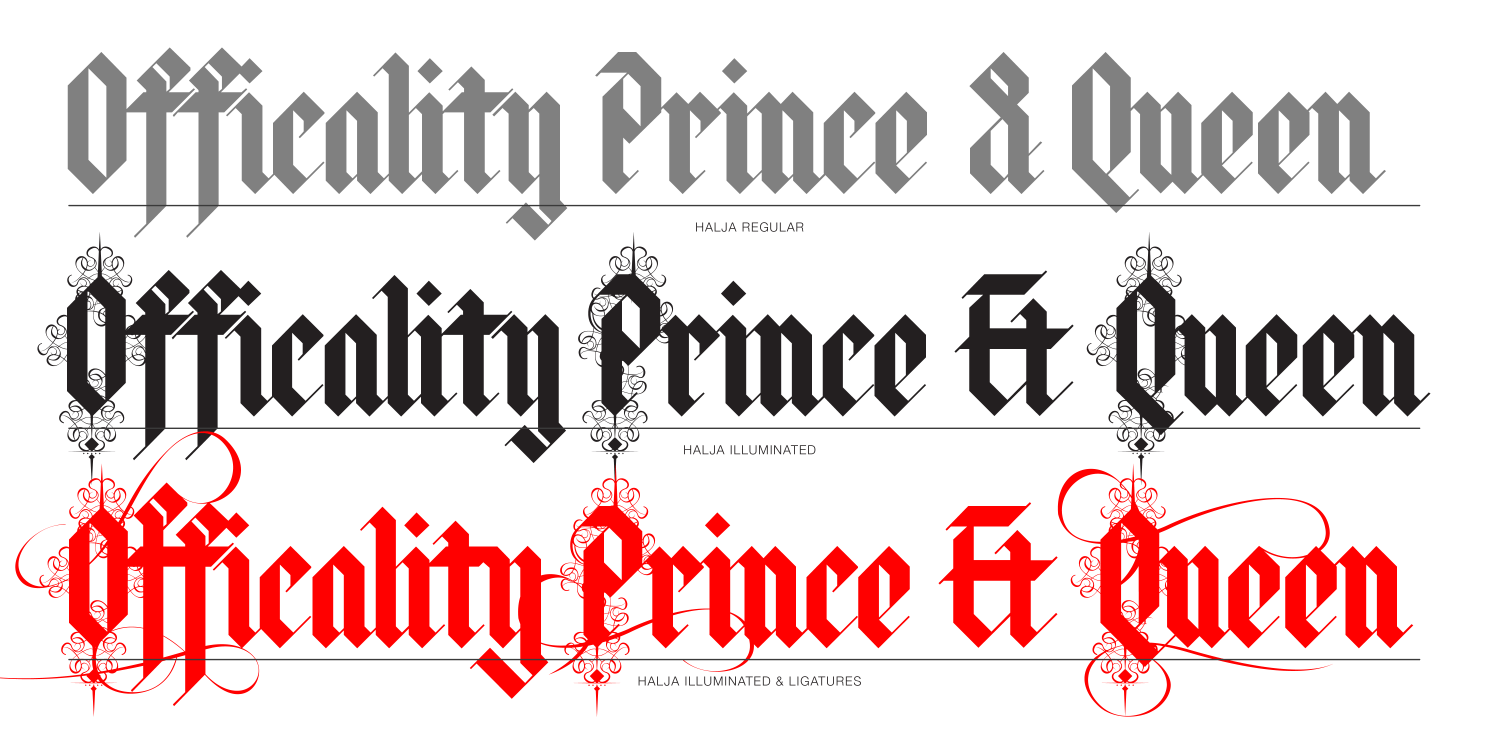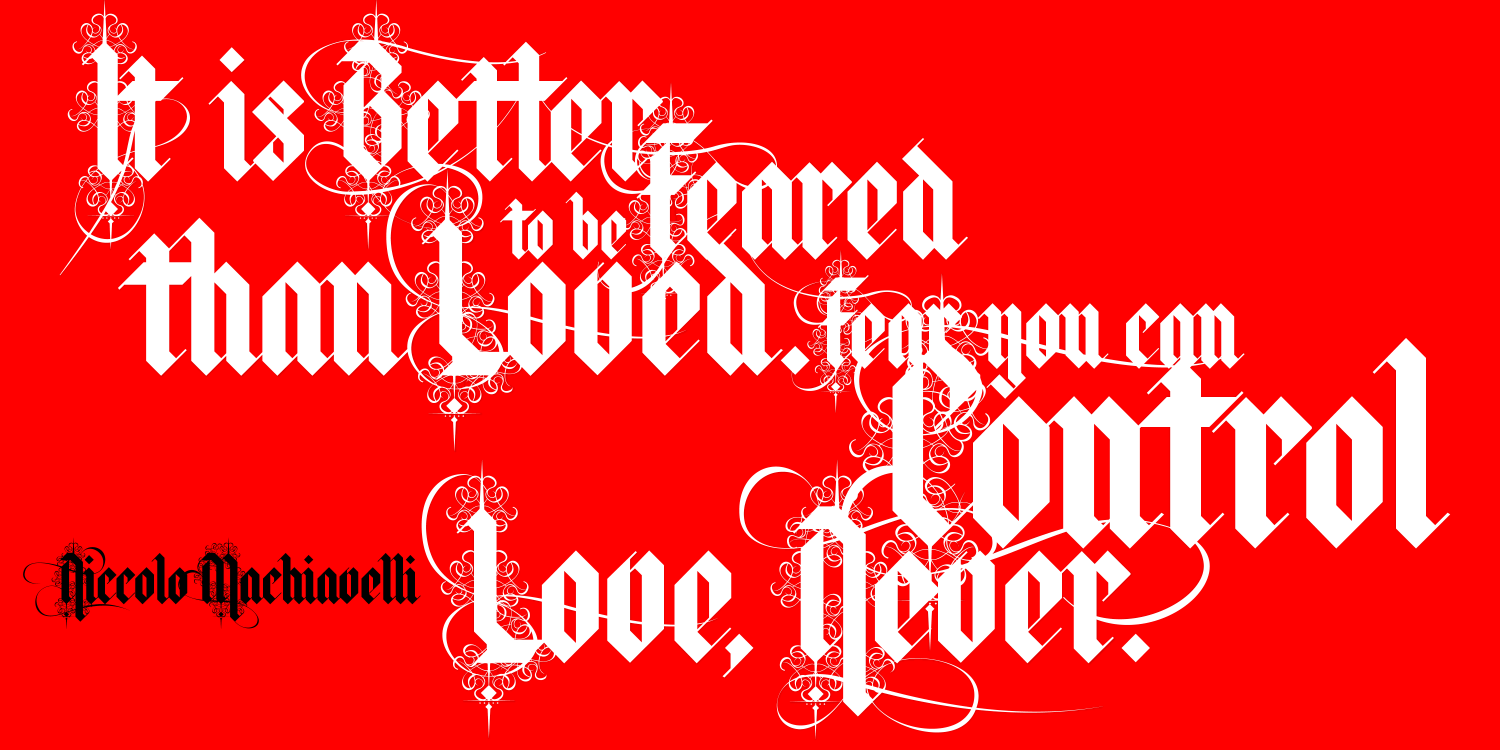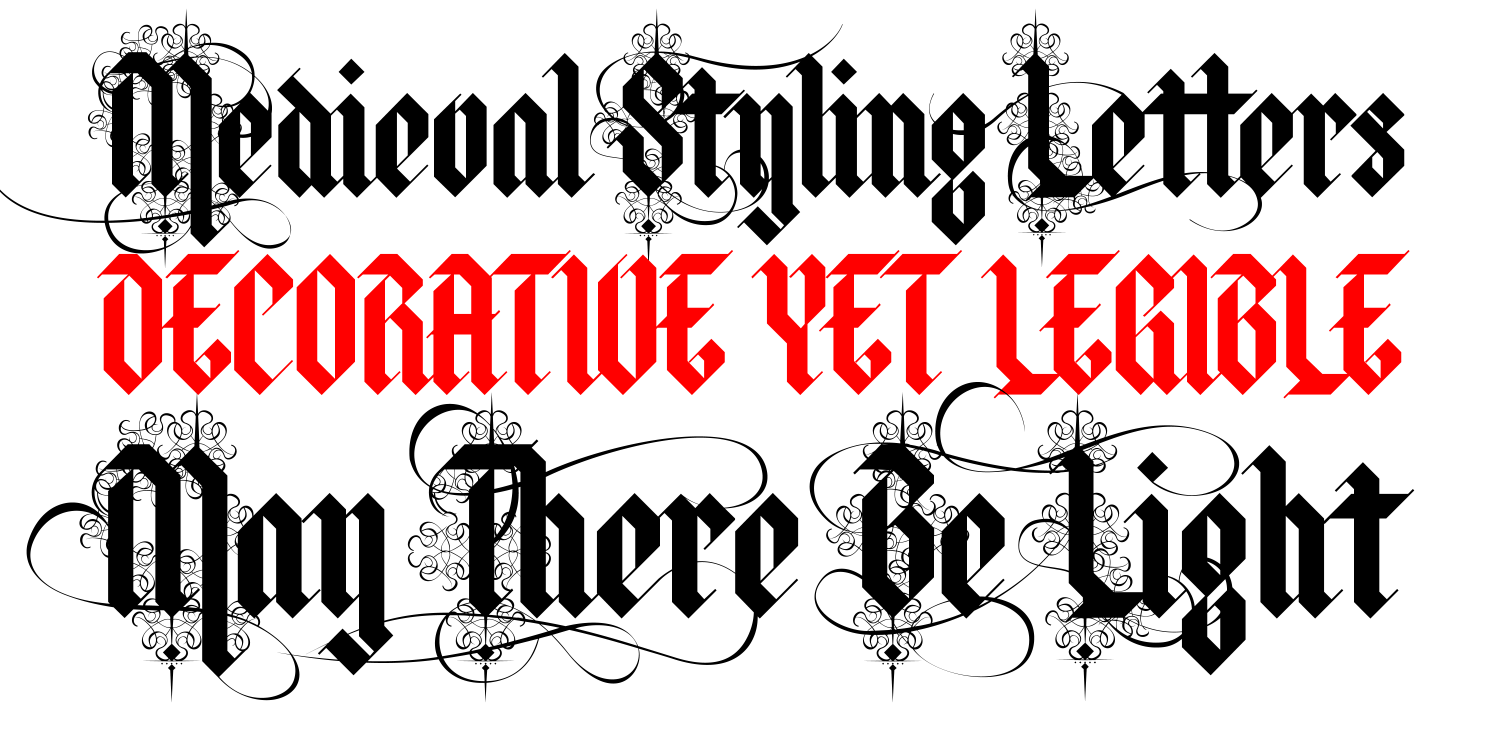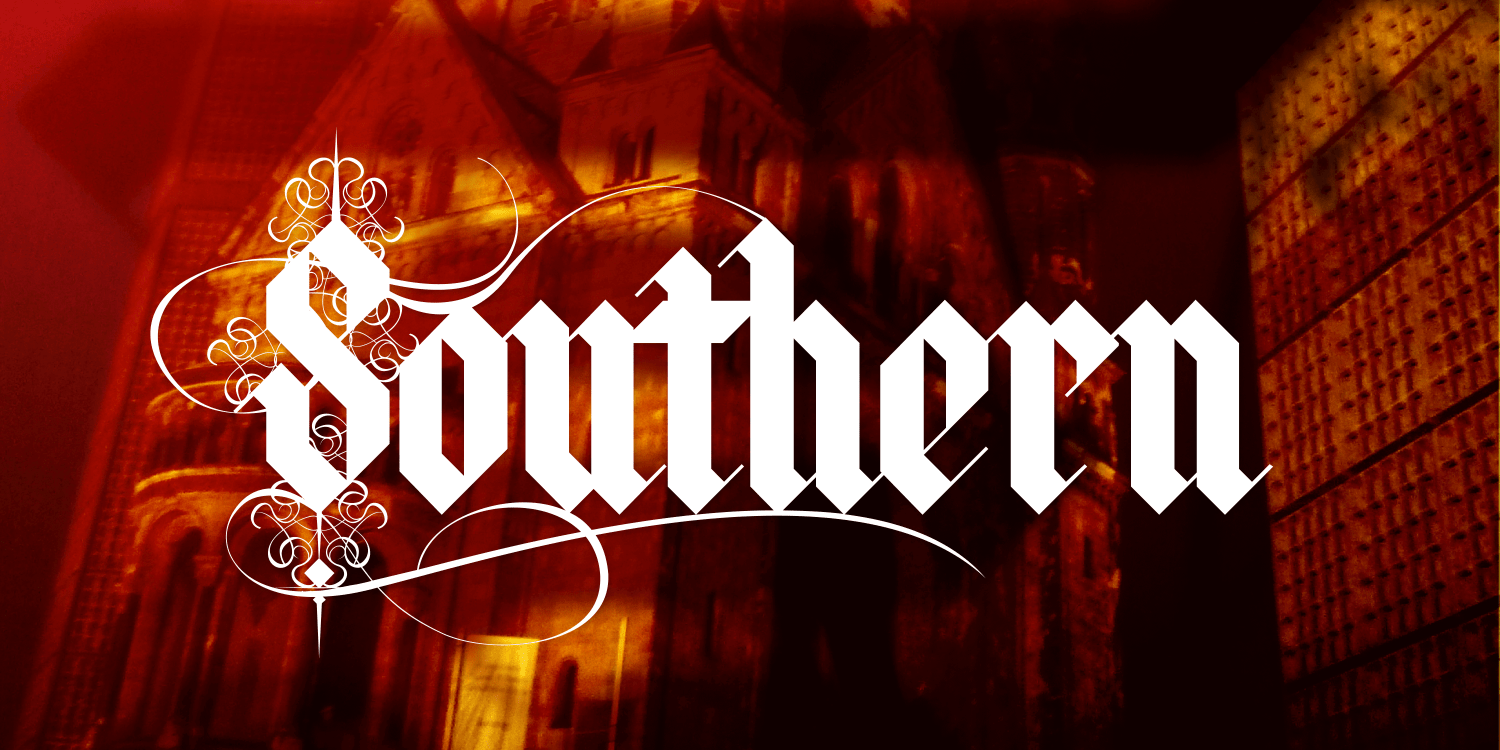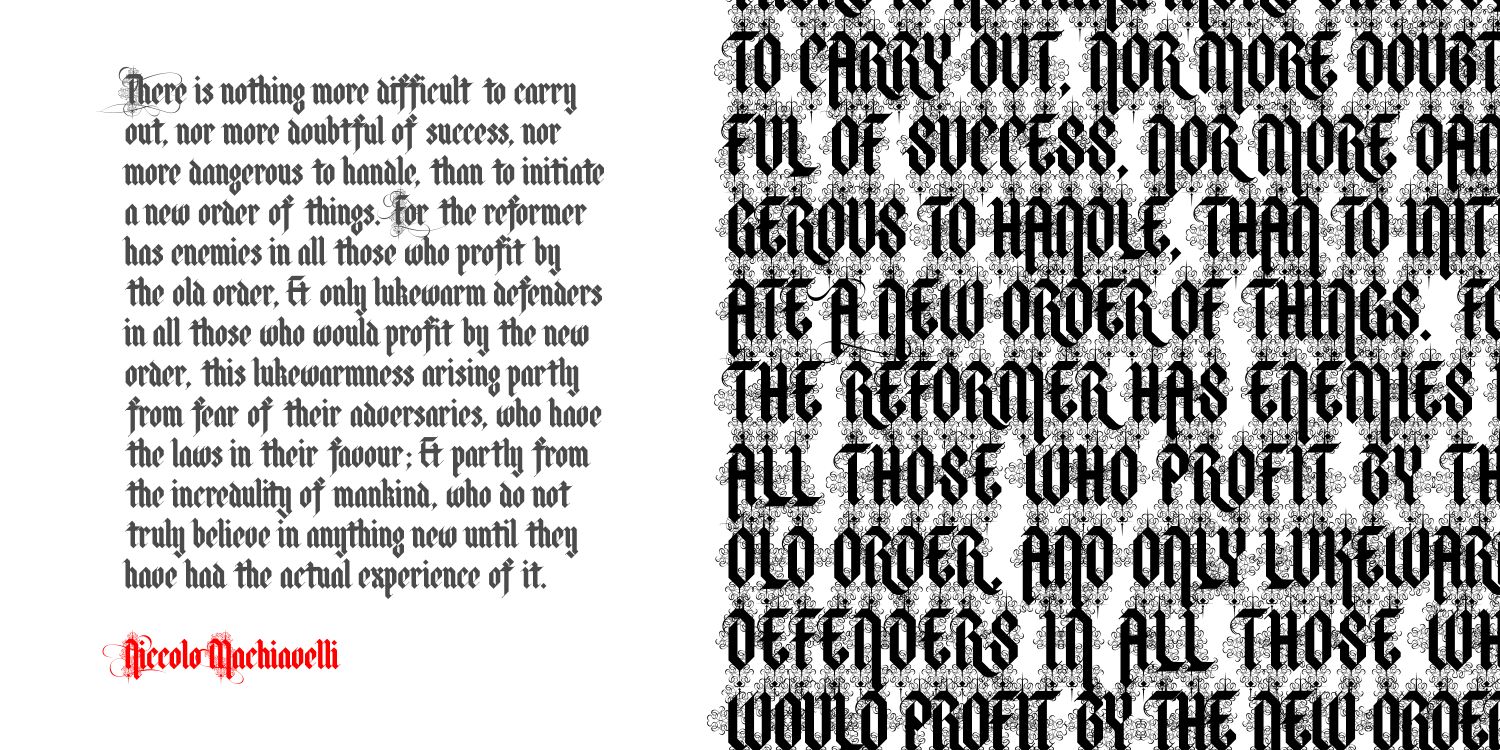
Halja Font – The Ultimate Modular Blackletter Font
Halja is a modular blackletter font designed for designers who seek a bold and impactful typeface.
This unique font features sharp edges and gothic aesthetics, making it perfect for various creative projects.
Halja comes in two styles: Regular and Illuminated, both inspired by traditional handcrafted
lettering. If you’re looking for a high-quality modular blackletter font, Halja is the perfect choice.
Why Choose the Halja Modular Blackletter Font?
One of the most outstanding features of Halja is its **extensive set of 550+ ligatures**. These ligatures allow for
smooth letter connections, ensuring fluid and elegant typography. Furthermore, Halja’s blackletter
style gives your designs a unique gothic touch while maintaining excellent readability. As a result,
this modular blackletter font is highly versatile and adaptable to different creative needs.
Where Can You Use This Modular Blackletter Font?
Halja is perfect for a wide range of design applications. For example, it works well in branding,
tattoos, posters, album covers, and medieval-themed projects. Moreover, this modular blackletter
font is an excellent choice for gaming logos, vintage packaging, and calligraphy-inspired artwork. In addition,
if you’re creating a fantasy book cover or a gothic-style invitation, Halja will make your design stand out.
Blackletter Fonts in Modern Design Trends
Blackletter fonts have gained significant popularity in modern typography. While historically
associated with medieval manuscripts, they are now widely used in branding, social media graphics, and digital
art. However, some blackletter fonts can be difficult to read. That’s why Halja
was designed with both aesthetics and readability in mind.
Technical Features of the Halja Modular Blackletter Font